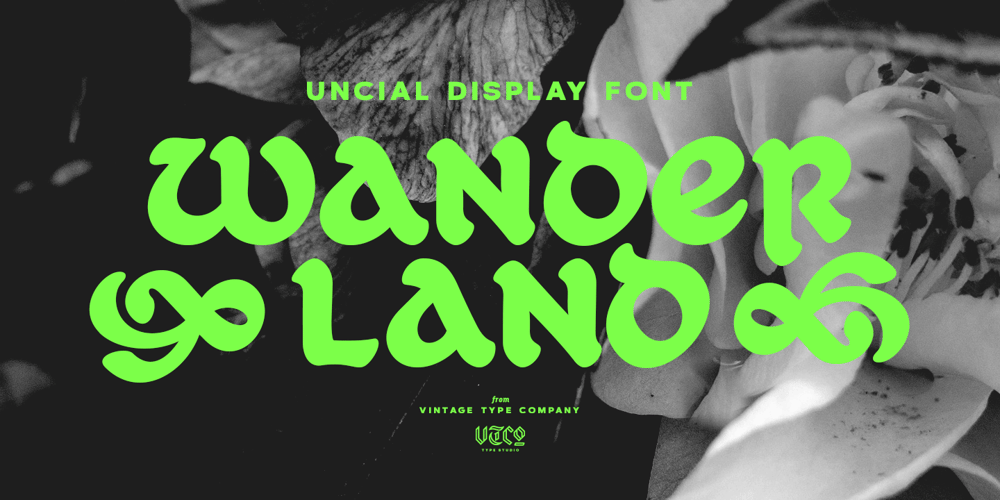
VTC Wanderland
VTC Wanderland font
VTC Wanderland Font Family was designed by Sean Coady and published by Vintage Type Company. VTC Wanderland contains 1 styles and family package options. Wanderland Display Font is an inky, uncial display typeface with 271 characters, Adobe Latin 1 language support, and a small collection of swashes, ornaments, and alternates.As a modern take on an old style, Wanderland makes a great font choice for bold signage, branding & logo designs, cover designs, video titles, and label & packaging designs.Designed for use in large sizes with soft corners for a vintage, ink-bled aesthetic.Activate the included ornaments and swashes with the Swash OpenType feature and by using the numerals and A to I of the alphabet.